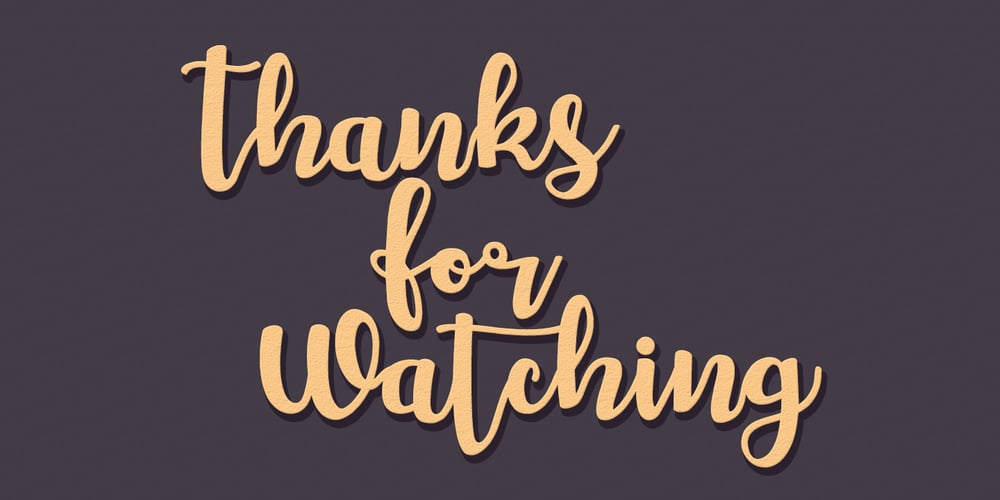
Chellion Font Family was designed by Dian Haniffan Hadi and published by Beary. Chellion contains 1 styles and family package options. Introducing the elegant Chellion! Chellion is a modern feminine font, every single letters has carefully been crafted to make your text looks beautiful. With modern script style this font will be perfect for many different project like photography, watermark, quotes, blog header, poster, wedding, branding, logo, fashion, apparel, letter, invitation, stationery, etc. This font including ligature glyphs: ee tt ss ll Foreign languages support: ÀÁÂÃÄÅÆÈÉÊËÌÍÎÏÐÑÒÓÔÕÖÙÚÛÜÝßàáâãäåæèéêëìíîïðñòóôõöùúûüýÿ